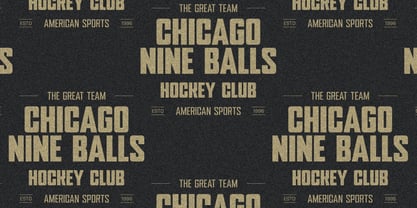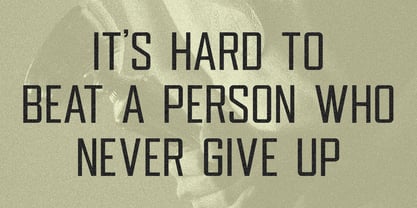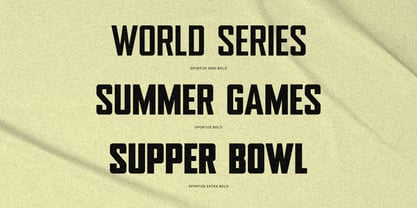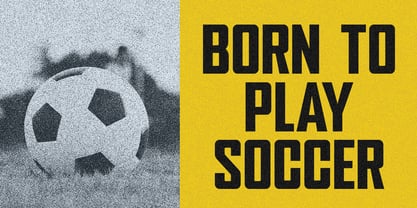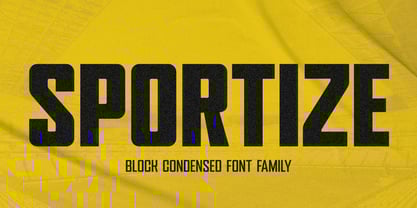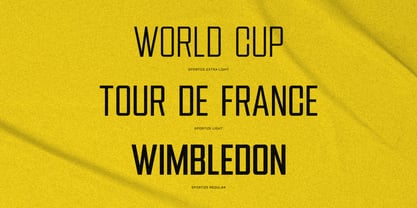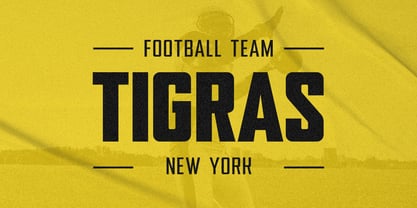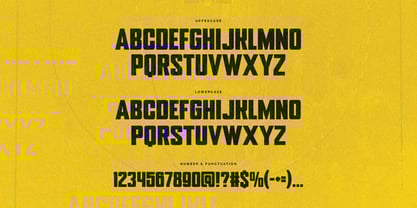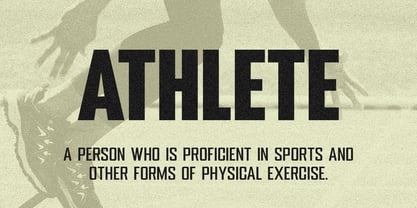
Sportize
by Dikas Studio
The Sportize Font Family was designed by Andika Setiawan and published by Dikas Studio. Sportize contains 6 styles and family package options. More about this family
Sportize is a strong, condensed sans-serif font with a boxy design that’s perfect for sports-themed projects. Available in six styles—extra light, light, regular, semi bold, bold, and extra bold—it offers versatility for headlines, posters, and more. Whether you’re designing for a team, event, or athletic brand, Sportize delivers impactful, professional results with a sporty edge.
Designers: Andika Setiawan
Foundry: Dikas Studio